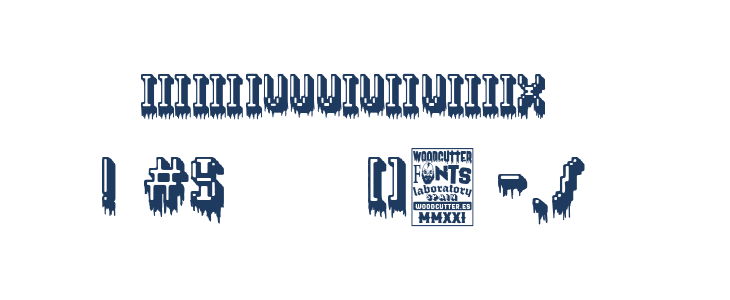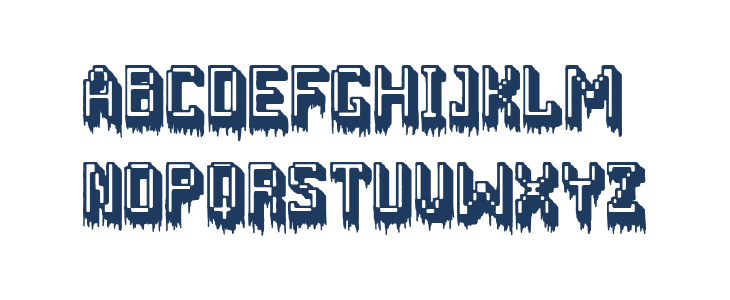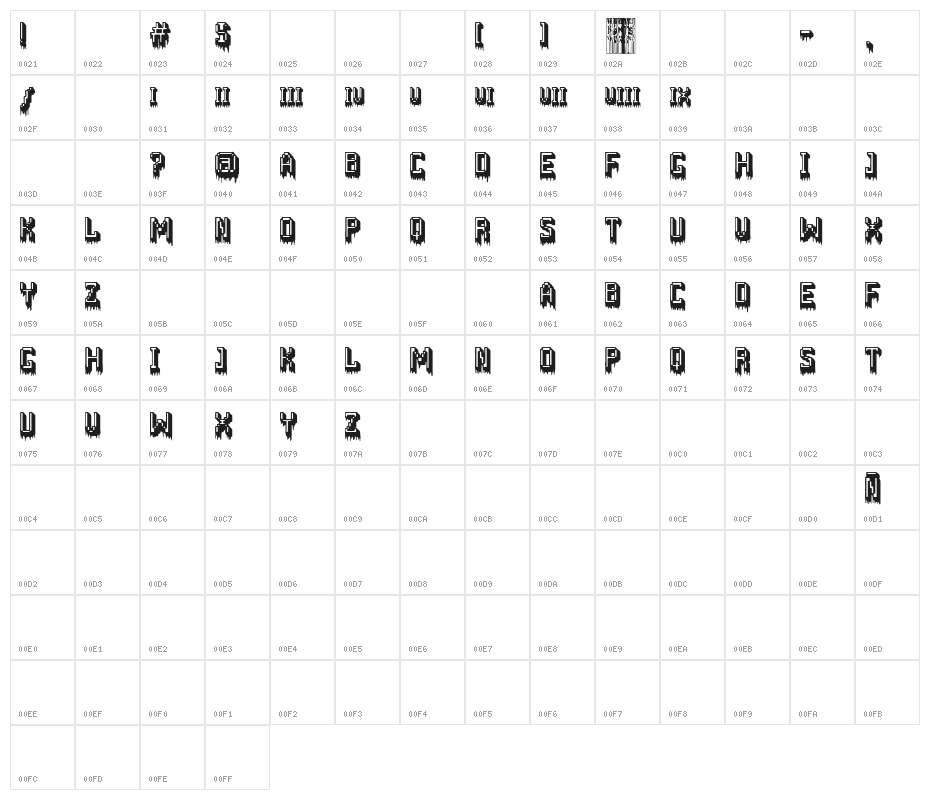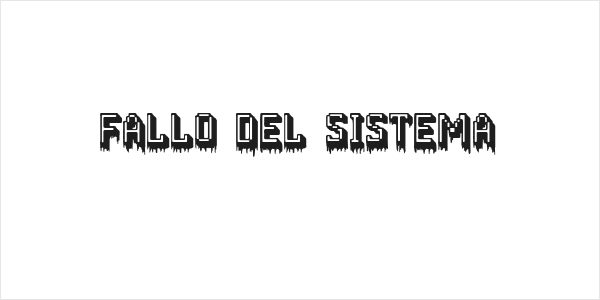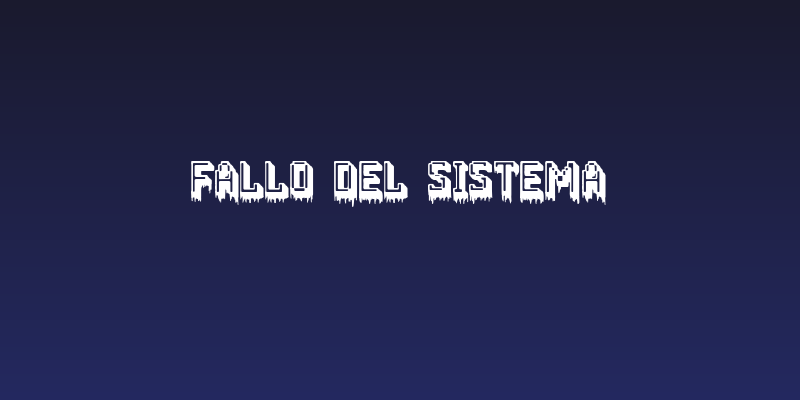
Fallo del Sistema Font
Fallo del Sistema Description
A bold, uppercase display font with a dripping, melting effect on each character, evoking a horror or glitch aesthetic. The characters are blocky and geometric, with consistent width and pronounced vertical drips extending from the baseline.
| Overall Style | Decorative, Horror, Glitch |
| Proposed Projects | Halloween posters, horror movie titles, spooky event flyers, video game graphics, themed party invitations. |